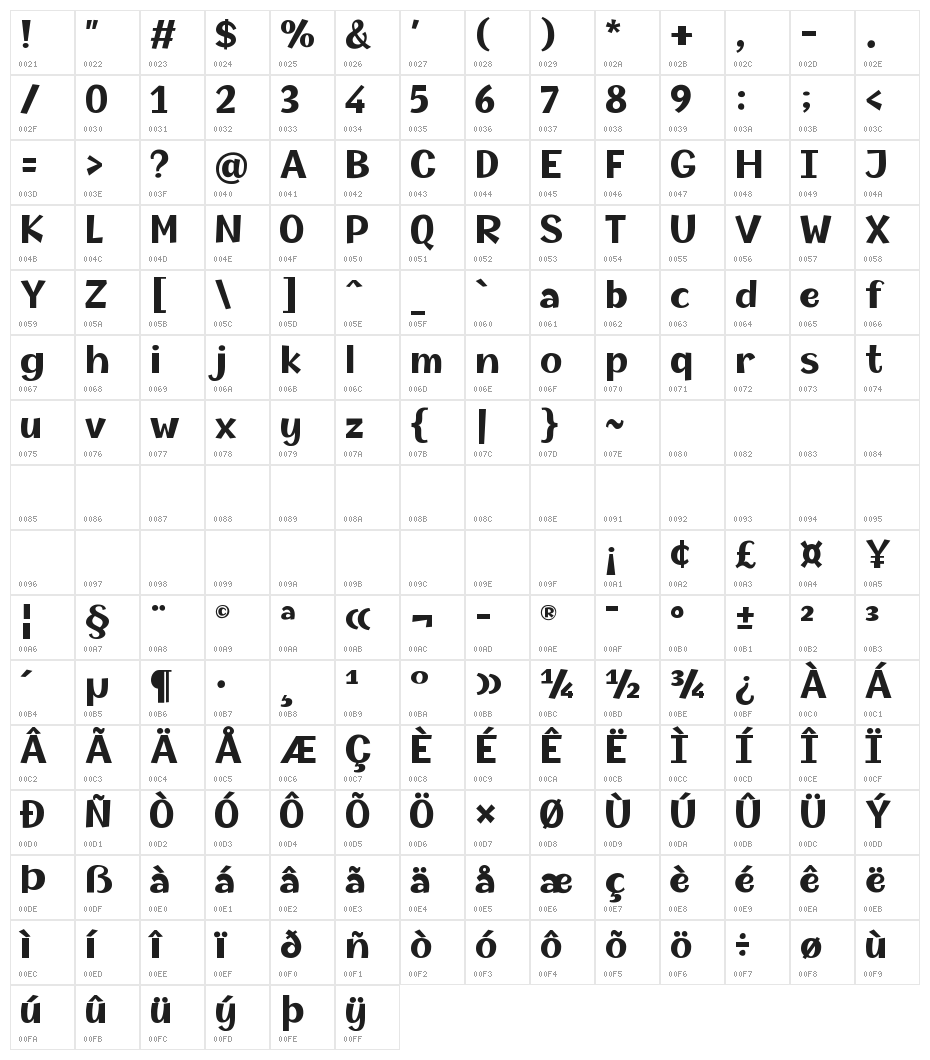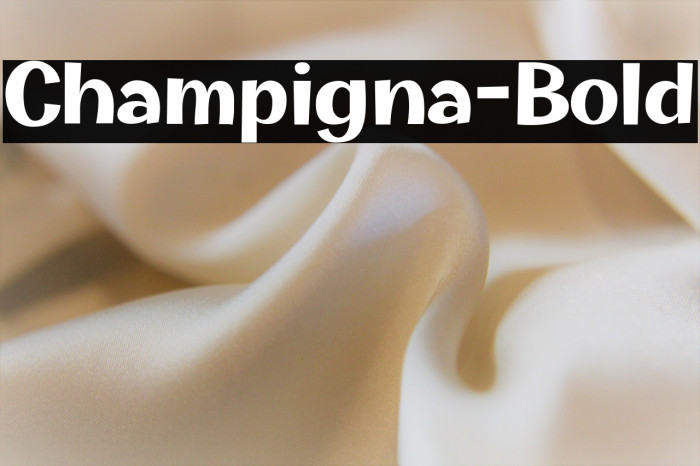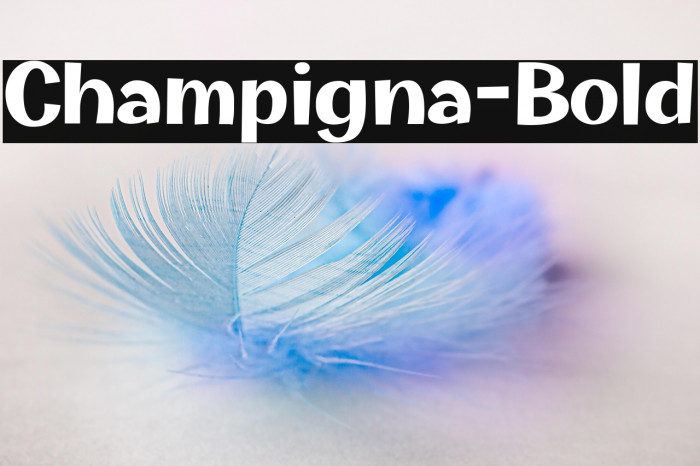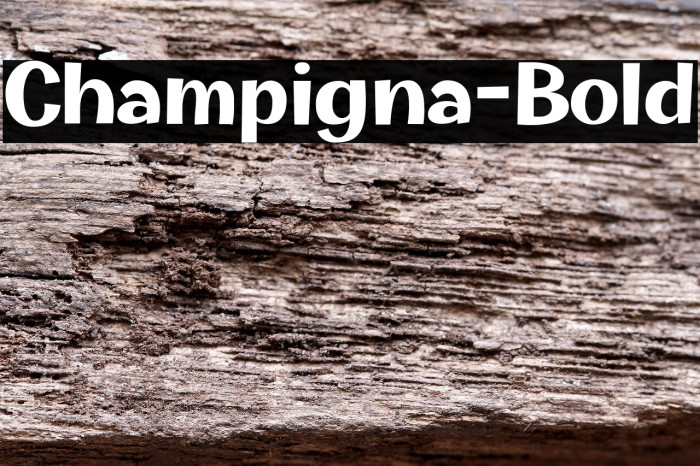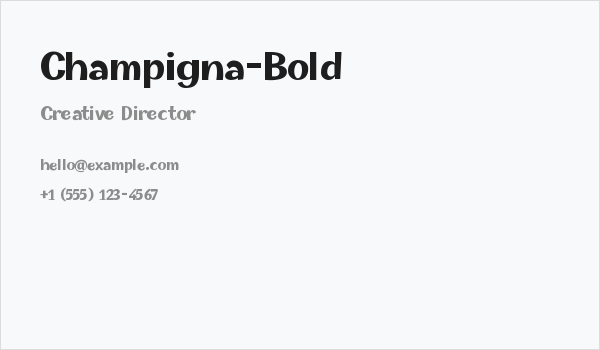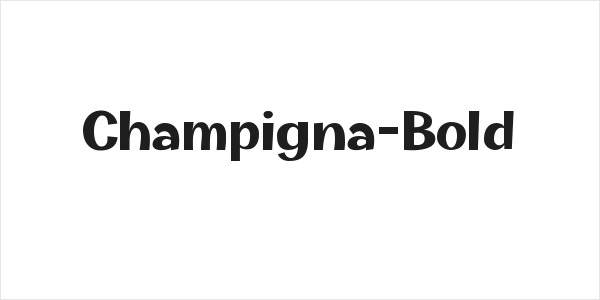
Champigna-Bold Font
Champigna-Bold Description
This bold typeface features a playful and dynamic style with a slightly whimsical touch. The letters are robust and have a strong presence, making them stand out in any design. The uppercase characters are particularly striking, with a slight slant and unique curves that add a sense of movement. The lowercase letters maintain a consistent style, complementing the uppercase with their rounded forms and smooth lines. The numerals are clear and bold, ensuring readability. Special characters are well-integrated, maintaining the font's overall aesthetic. This font is perfect for projects that require a bold, eye-catching typeface with a touch of personality.
| Proposed Projects | Ideal for branding, posters, headlines, and any design needing a bold statement. |